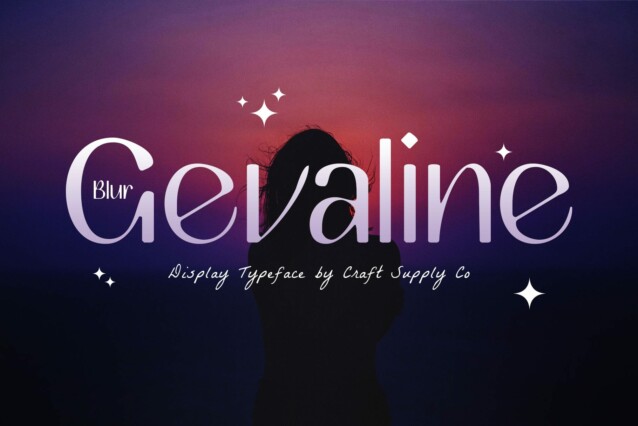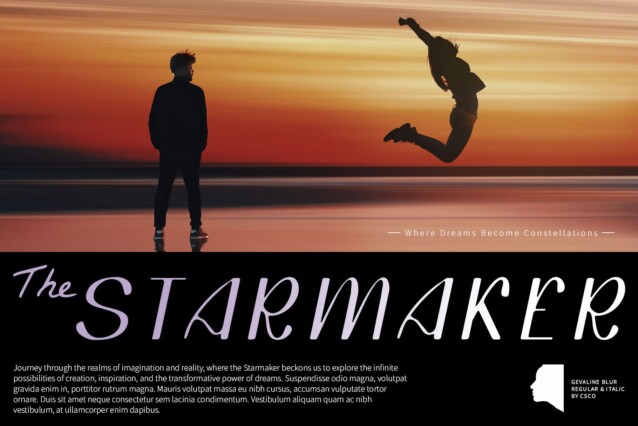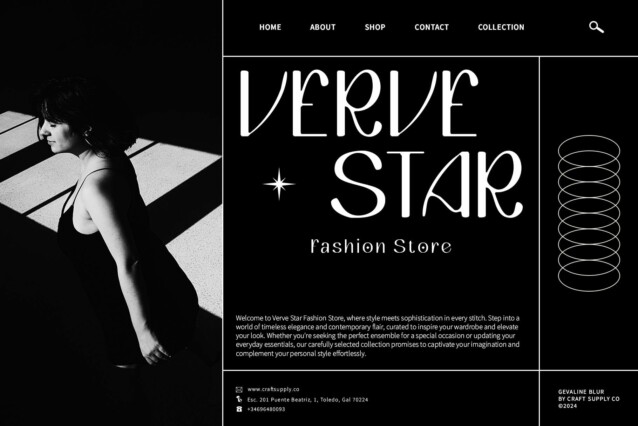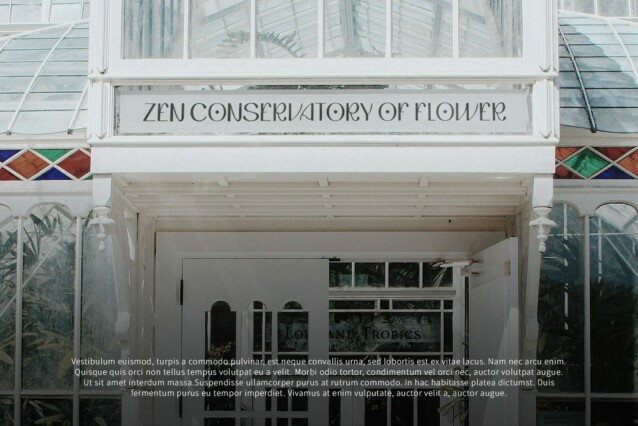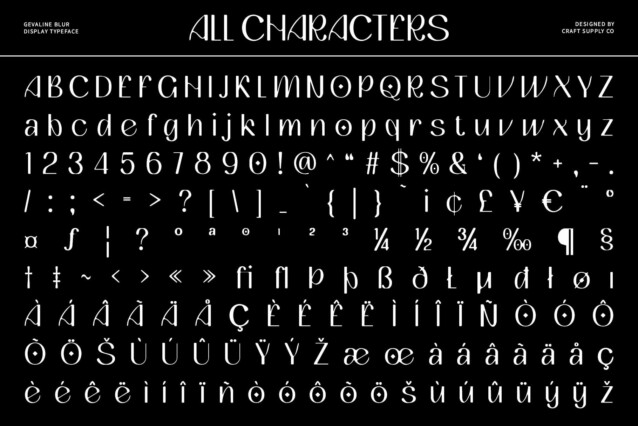
Gevaline Blur Font
Gevaline Blur Font is a modern sans serif font that stands out with its clean and minimalist design. Each letter exudes elegance and simplicity, making it perfect for a wide range of contemporary applications.
Subtle Feminine Touches for Captivating Beauty
Adorned with subtle feminine touches, Gevaline Blur offers a captivating charm and beauty. These delicate design elements add a layer of sophistication and grace, enhancing the font’s overall visual appeal.